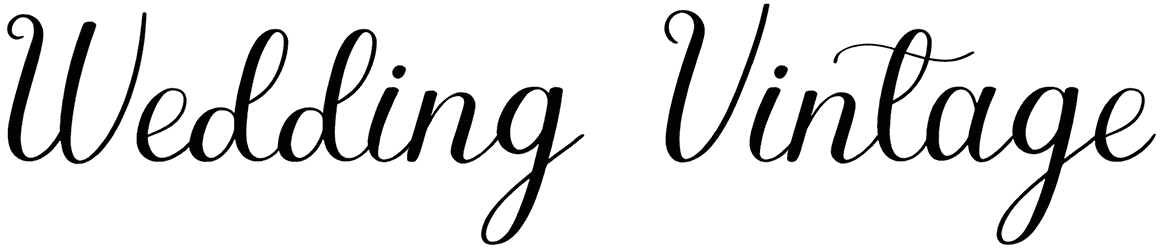
Wedding Vintage Font
You can convey a loveable and sweet vibe to your viewers with a wedding font like this item. Wedding Vintage possesses a twisty hand-lettering form that can be an ideal pickup for modern or classic layouts. As a handwritten font, Wedding Vintage font will enrich your projects like business cards, wedding invitations, magazines, or others with a notable vibe.
Wedding Vintage is a chic, refined script font that emanates sophistication and elegance. Its stylish alternates and ligatures make this font the perfect match for any project.